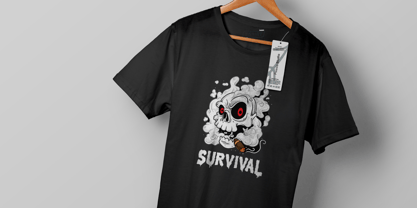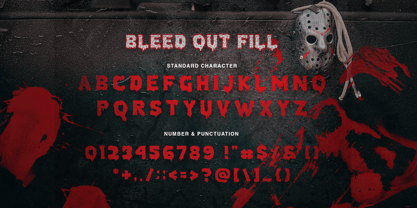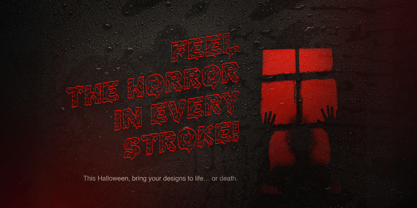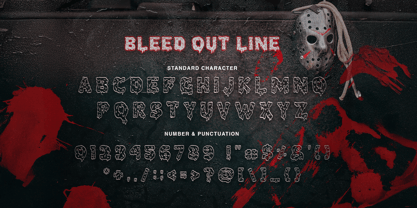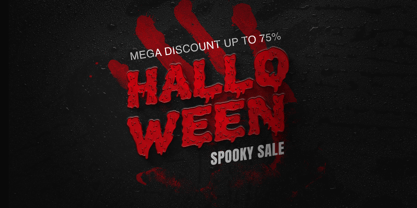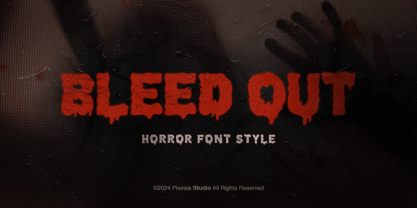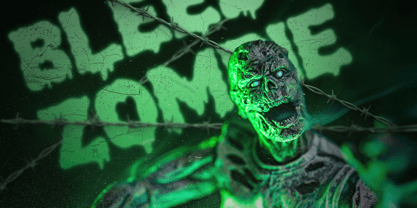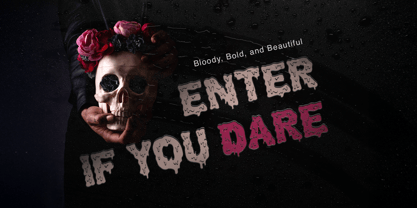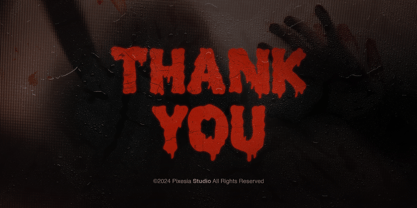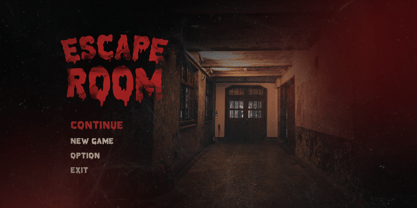
Bleed Out
by Pixesia Studio
The Bleed Out Font Family was designed by Abul Almaududi and published by Pixesia Studio. Bleed Out contains 2 styles and family package options. More about this family
Introducing Bleed Out - Dripping Display Font Bleed Out is a bold and dramatic dripping font that instantly grabs attention with its edgy, one-of-a-kind style. Its unique dripping effect adds a striking, dramatic touch that’s perfect for making your designs unforgettable. Bleed Out is perfectly suited for horror-themed designs, invitations, edgy posters, album covers, bold logos, social media graphics, merchandise, product packaging, spooky event promotions, video titles, and any project seeking a dramatic, bold, and eye-catching aesthetic. FEATURES - All Caps - Numbering and Punctuations - Works on PC or Mac - Simple Installation - PUA Encoded Characters - Easily accessible without additional design software. - Support Adobe Illustrator, Adobe Photoshop, Adobe InDesign, also works on Microsoft Word - Multilingual Support including Afrikaans, Albanian, Basque, Catalan, Danish, Dutch, English, Estonian, Faroese, Filipino, Finnish, French, Galician, German, Icelandic, Indonesian, Irish, Italian, Malay, Norwegian Bokmål, Portuguese, Spanish, Swahili, Swedish, Zulu Hope you Like it. Thanks.
Designers: Abul Almaududi
Foundry: Pixesia Studio